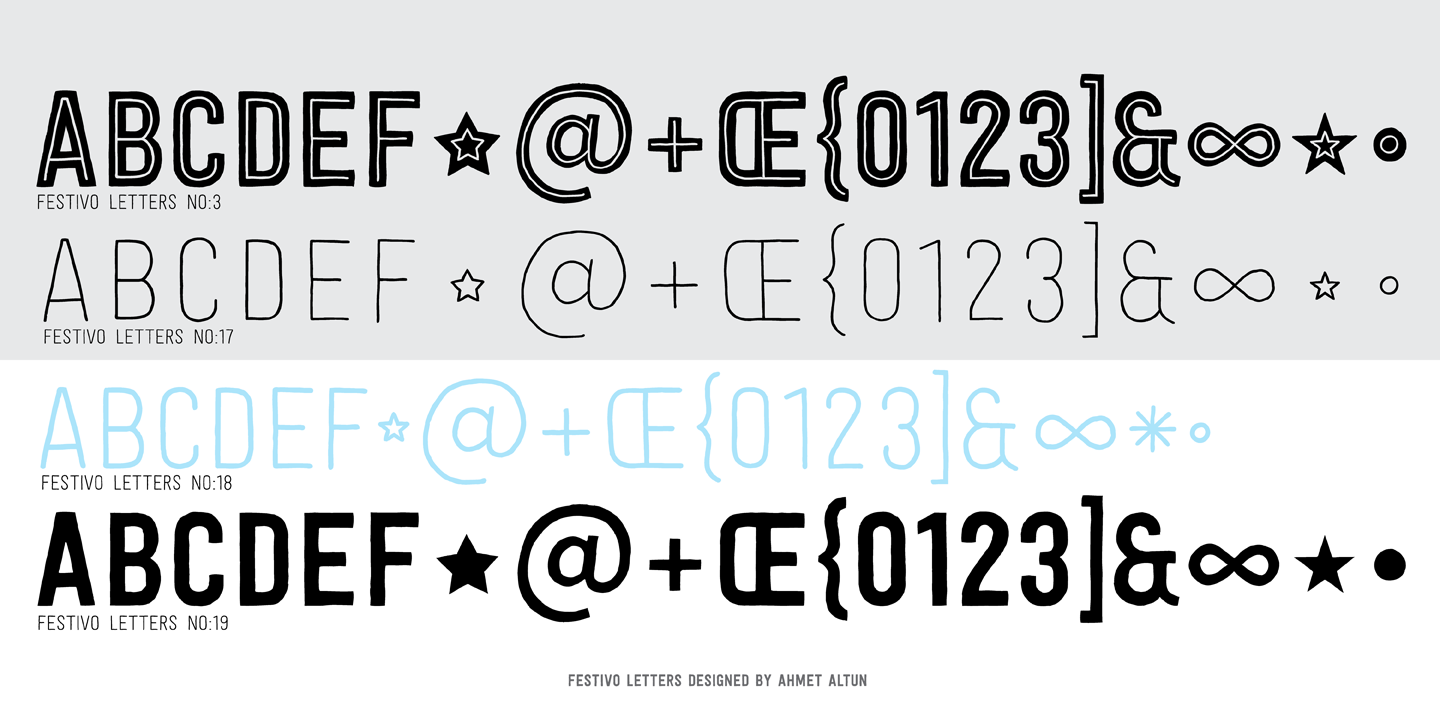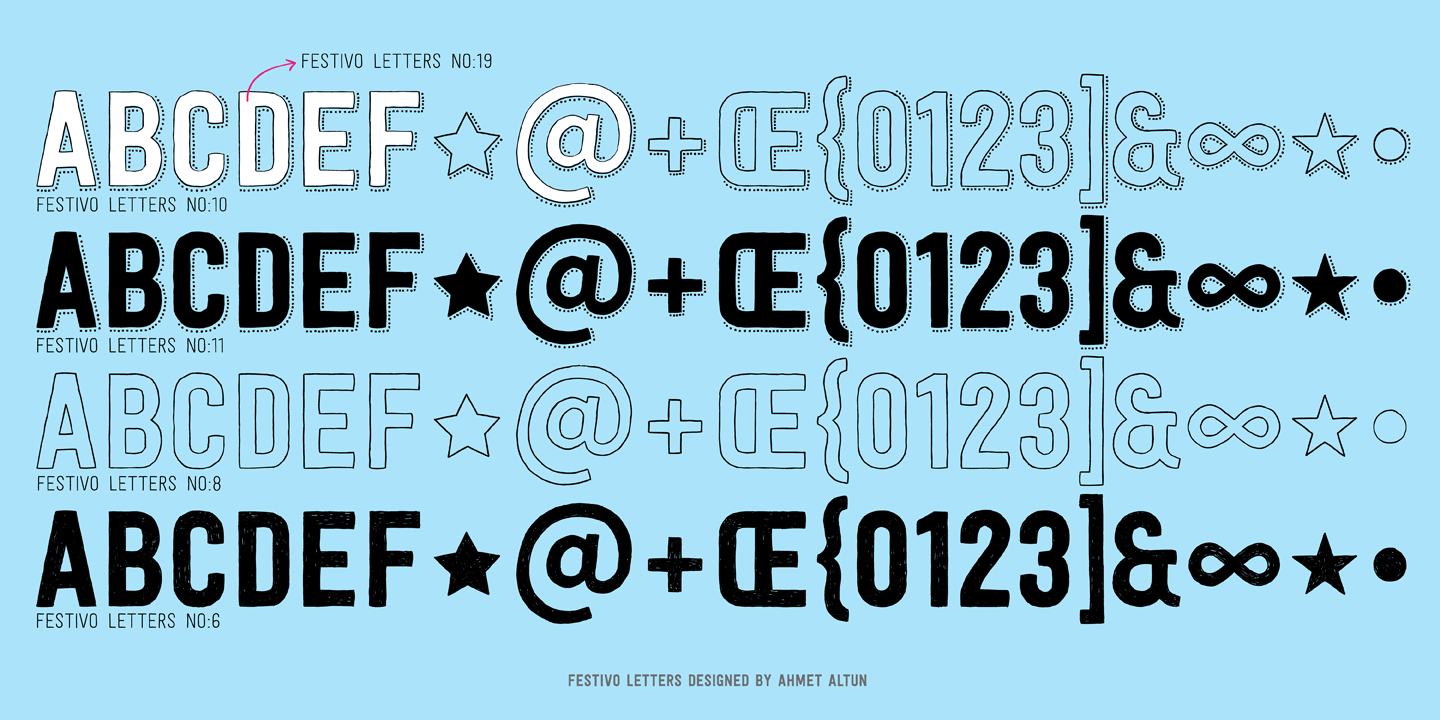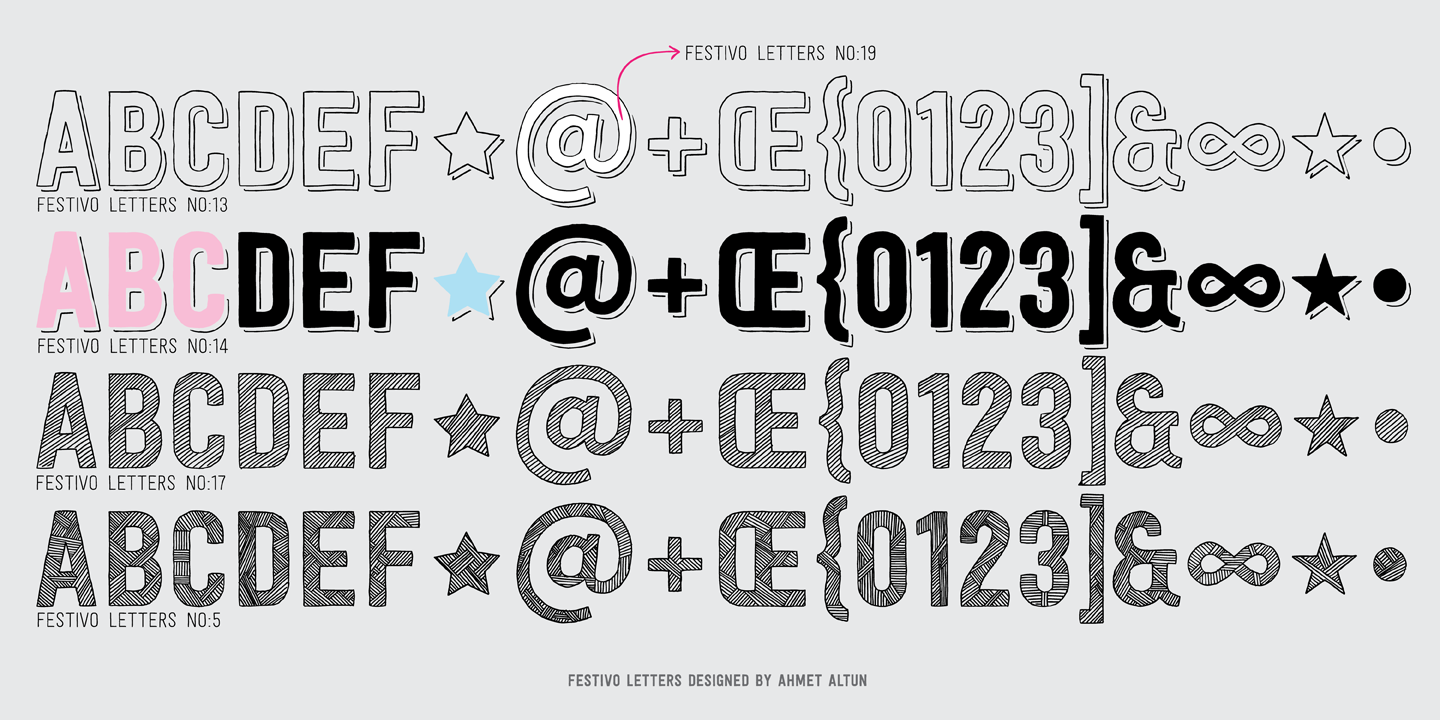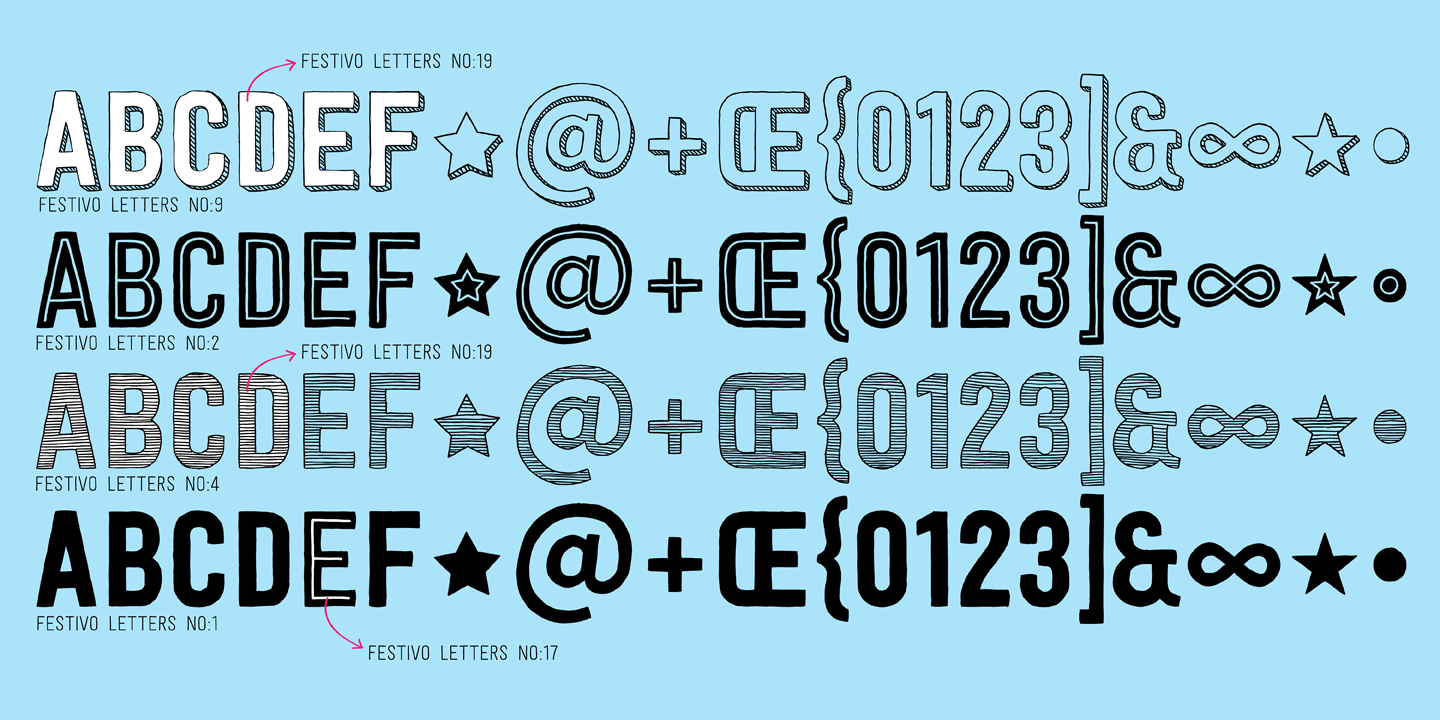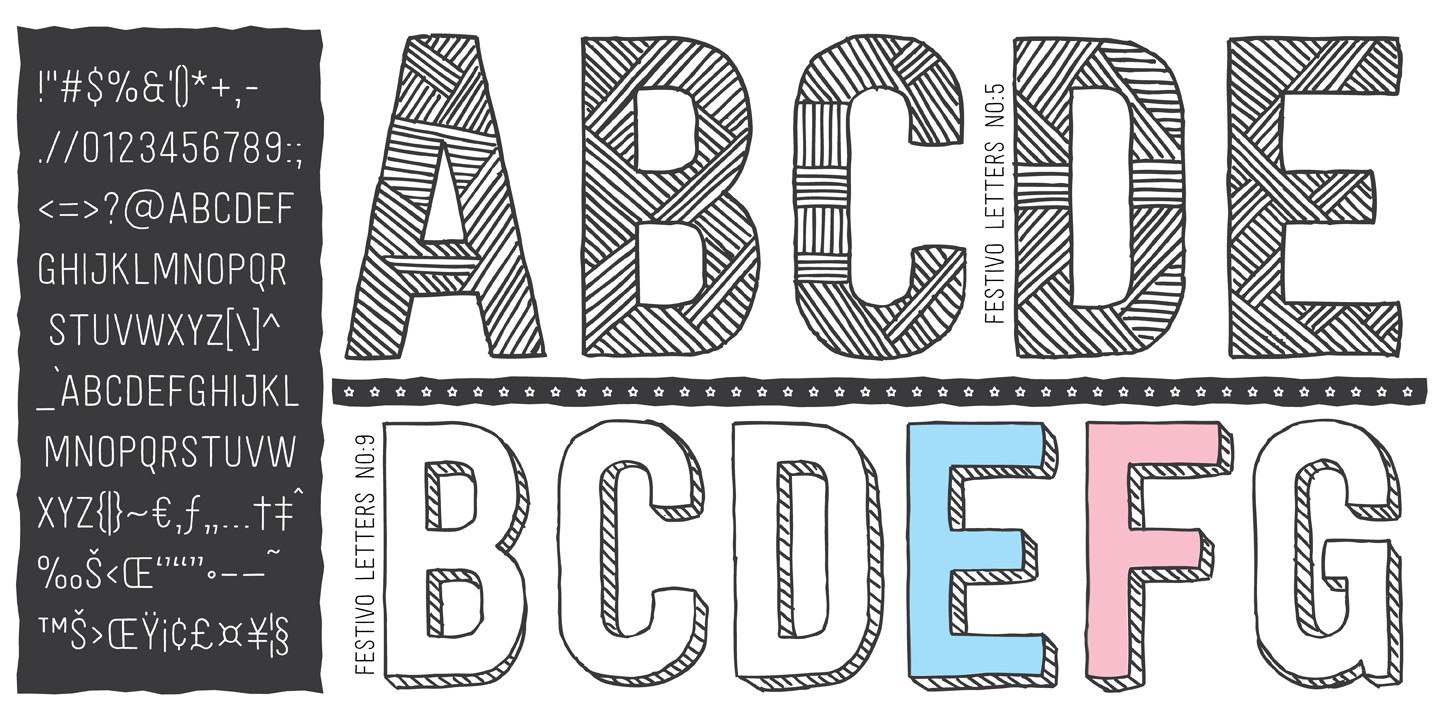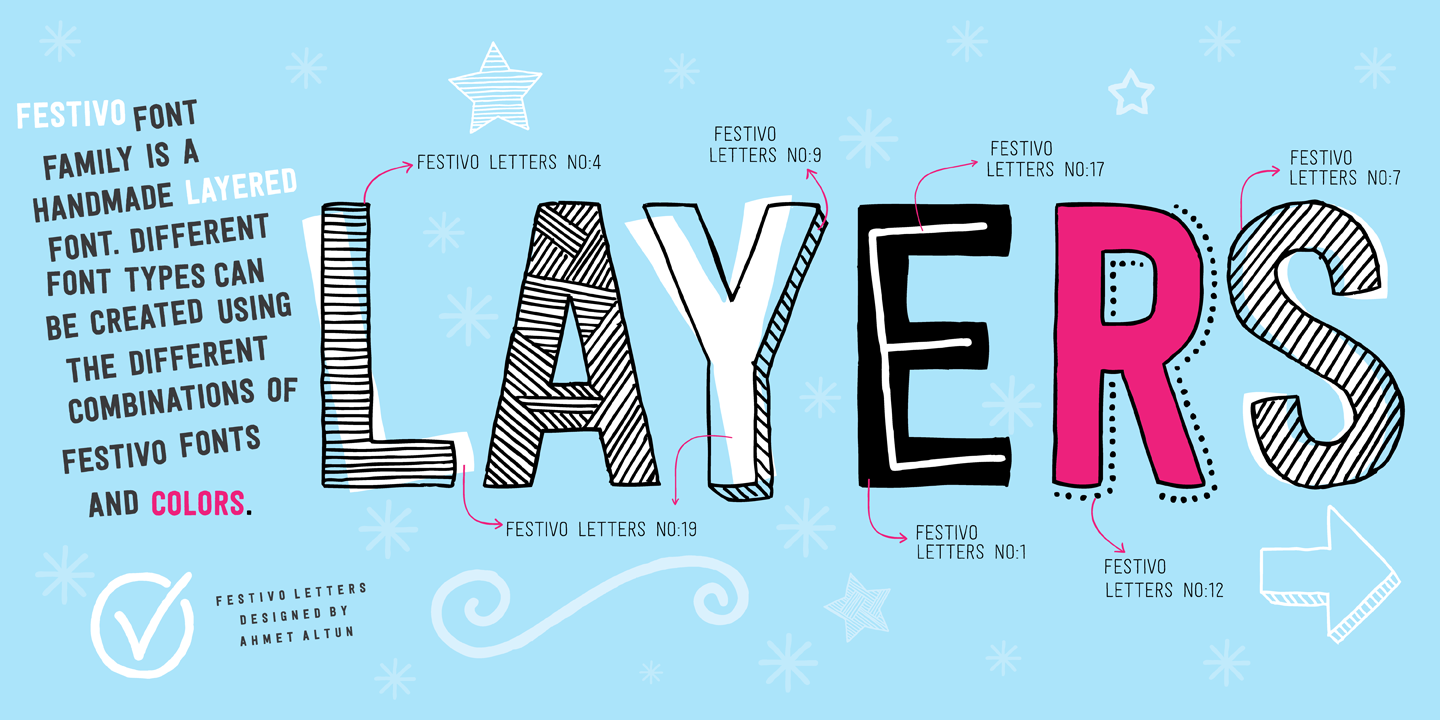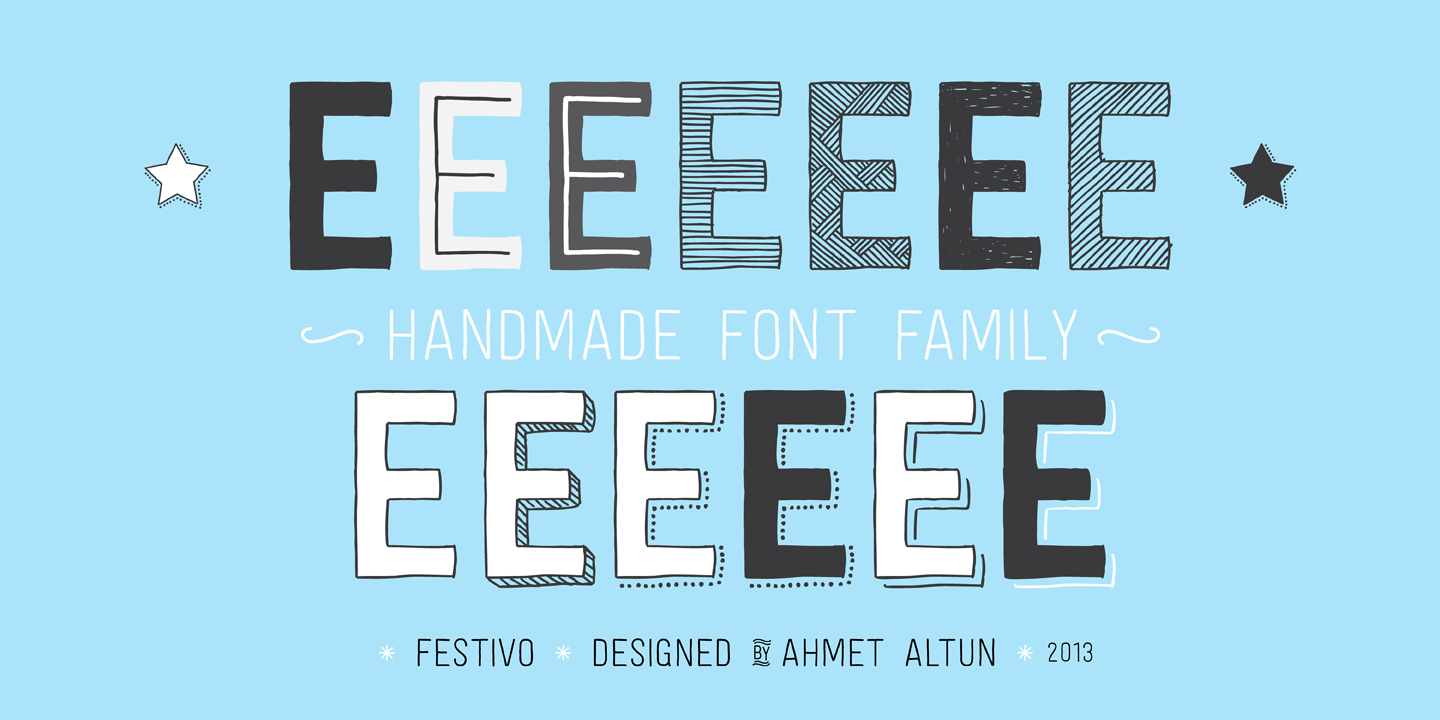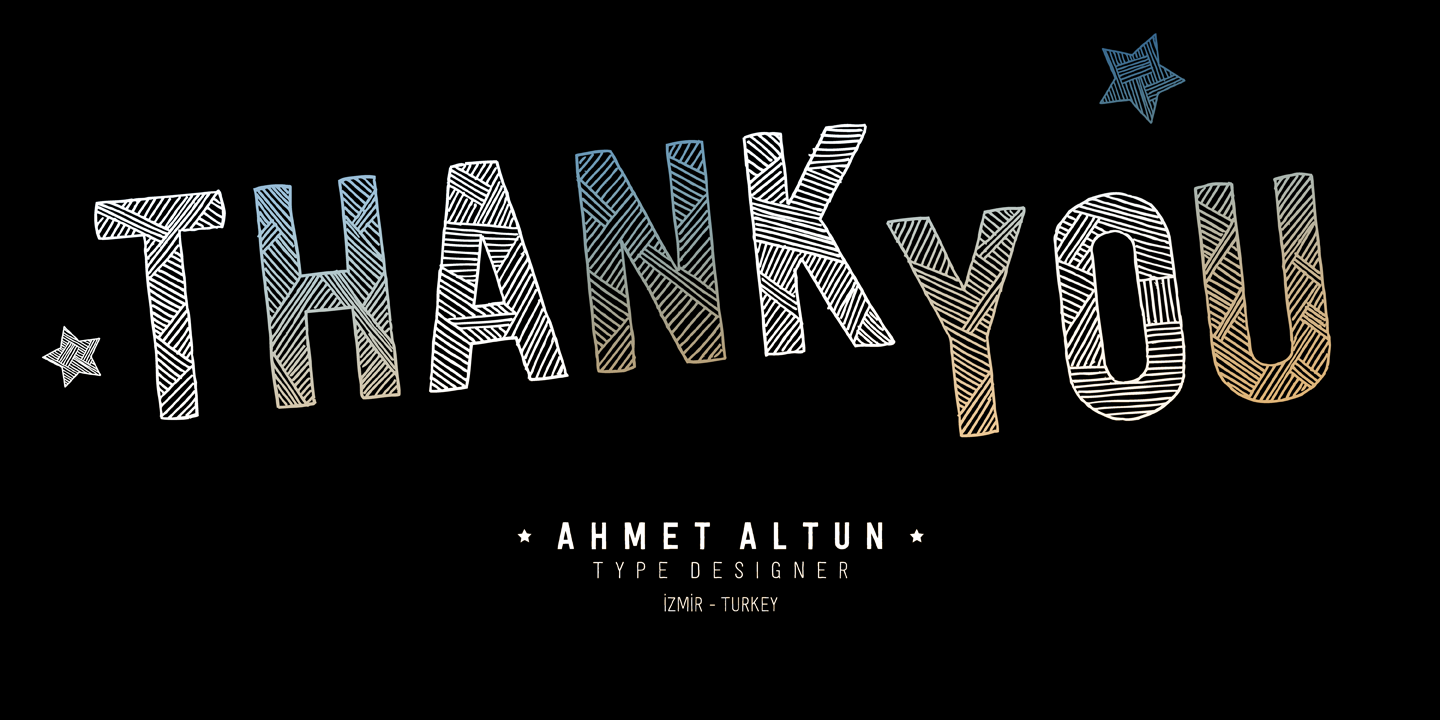
Festivo Letters Family (19 fonts)
From Ahmet Altun
Festivo’s diverse design options offer countless possibilities for logos, posters, advertising, magazines, packaging, book titles, display, signage, and t-shirts, just to name a few. Have fun!